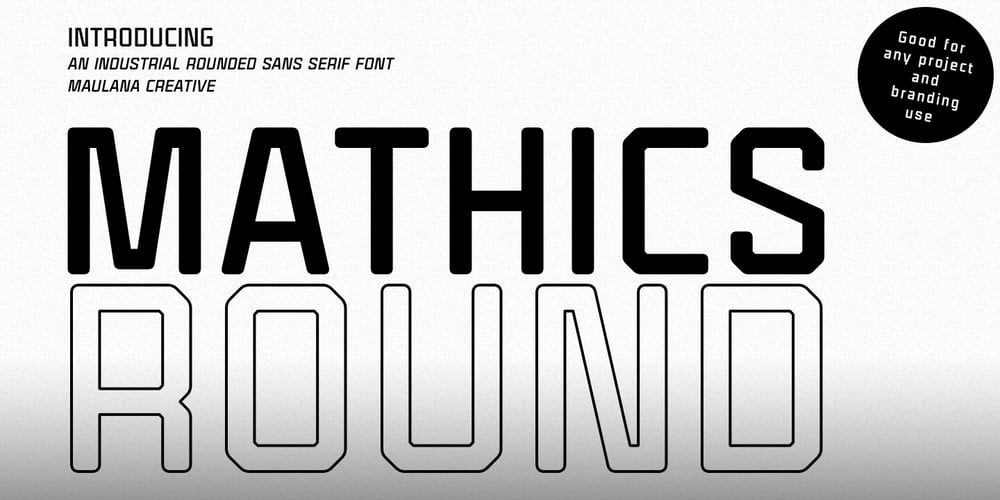
Mathics
Mathics font
Mathics Font Family was designed by Gilang Maulana and published by Maulana Creative. Mathics contains 1 styles and family package options. Mathics Round is an Industrial sans serif font. With soft rounded edges stroke, fun character with a bit of ligatures. To give you an extra creative work. Mathics font support multilingual more than 100+ language. This font is good for logo design, Social media, Movie Titles, Books Titles, a short text even a long text letter and good for your secondary text font with script or signature. Make a stunning work with Mathics font. Cheers, MaulanaCreative